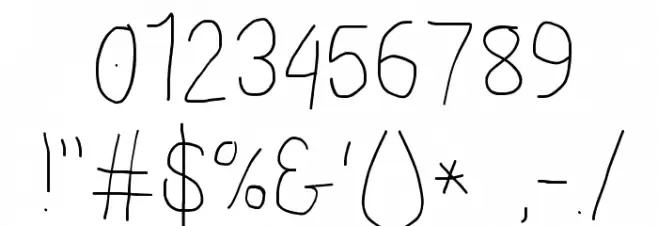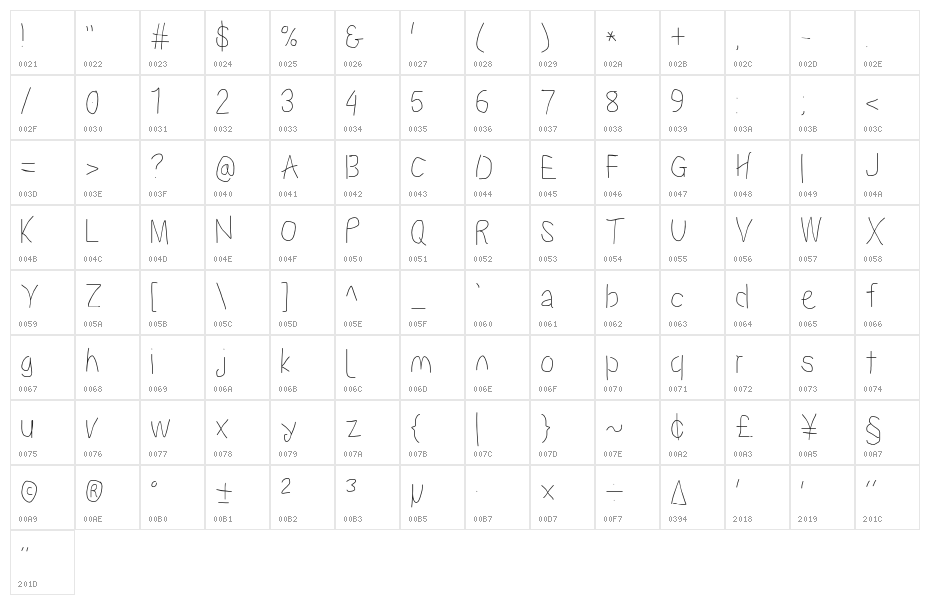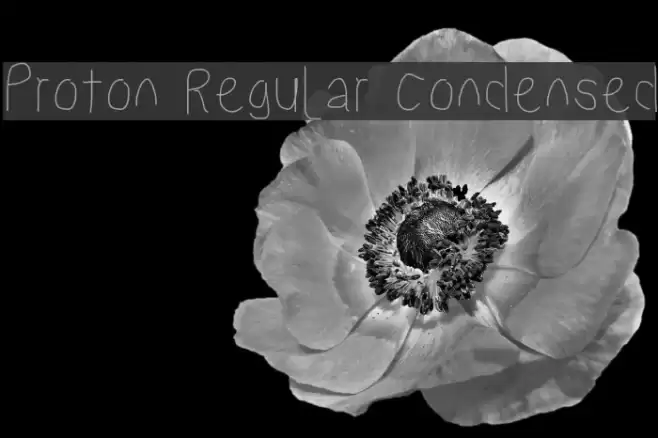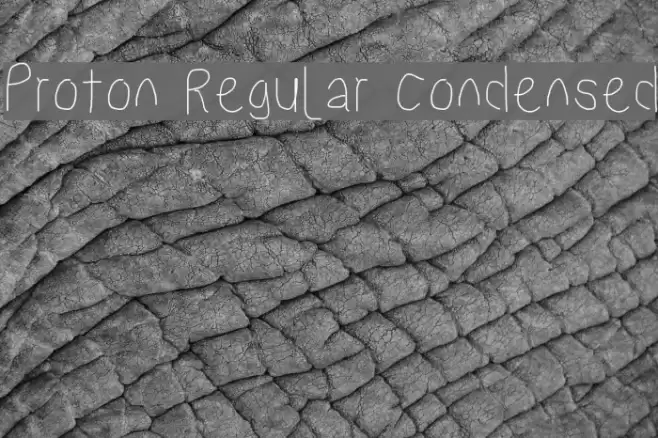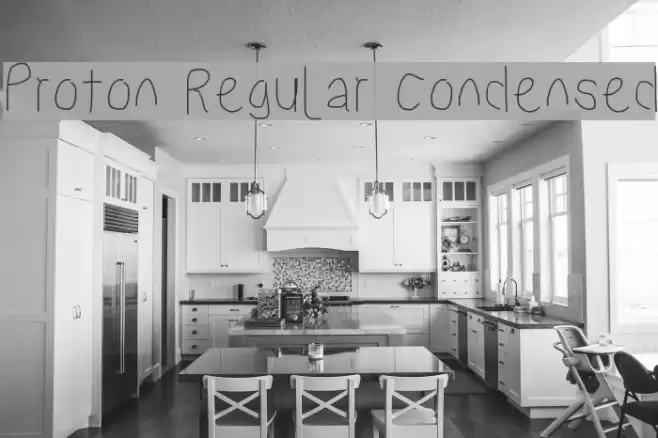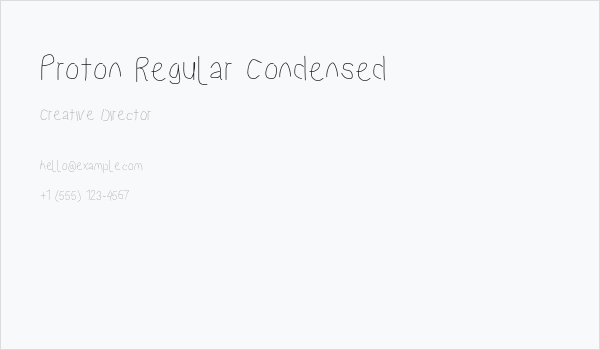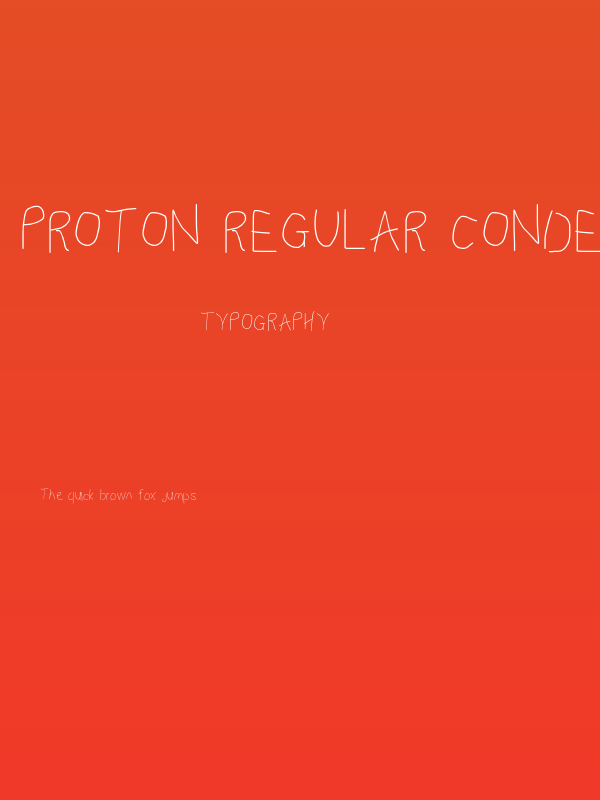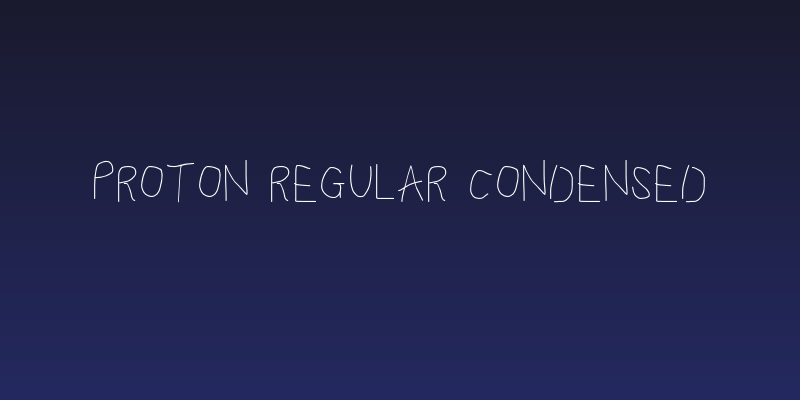
Proton Regular Condensed Font
Proton Regular Condensed Description
This font features a playful and casual handwritten style with a condensed structure. The letters are slightly irregular, giving it a whimsical and approachable feel. The strokes are thin and consistent, with a slight variation that adds to its charm. The uppercase and lowercase letters maintain a uniform height, while the numbers and special characters blend seamlessly with the overall design. This font is ideal for projects that require a personal touch, such as invitations, greeting cards, or informal branding.
| Proposed Projects | Ideal for invitations, greeting cards, children's books, and informal branding. |